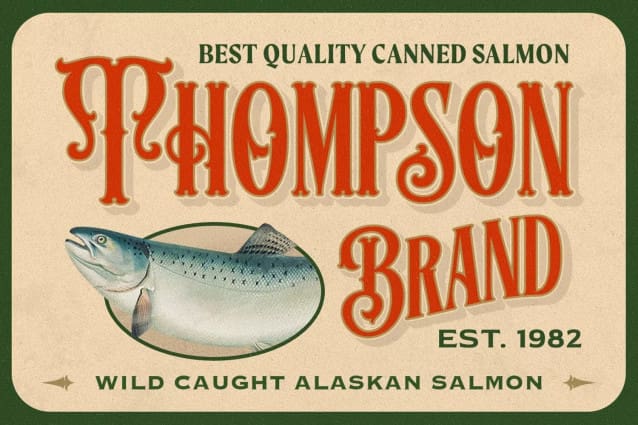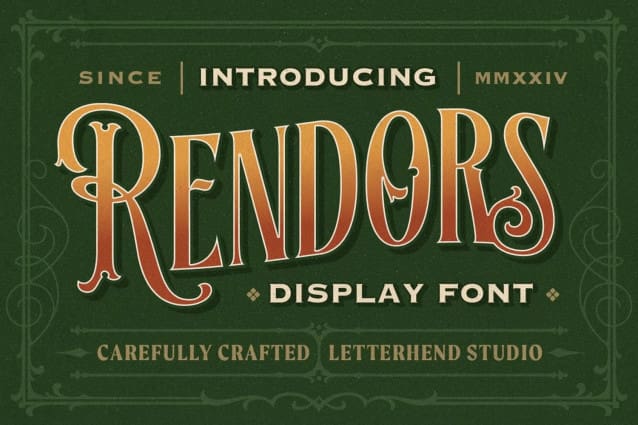
Rendors Display Font
Rendors Display Font, is a typeface which is inspired by vintage lettering sign and art. While this font has a victorian touch, it still looks bold and solid. Very suitable for for headline, logotype, apparel, invitation, branding, packaging, advertising etc with old school / retro theme.